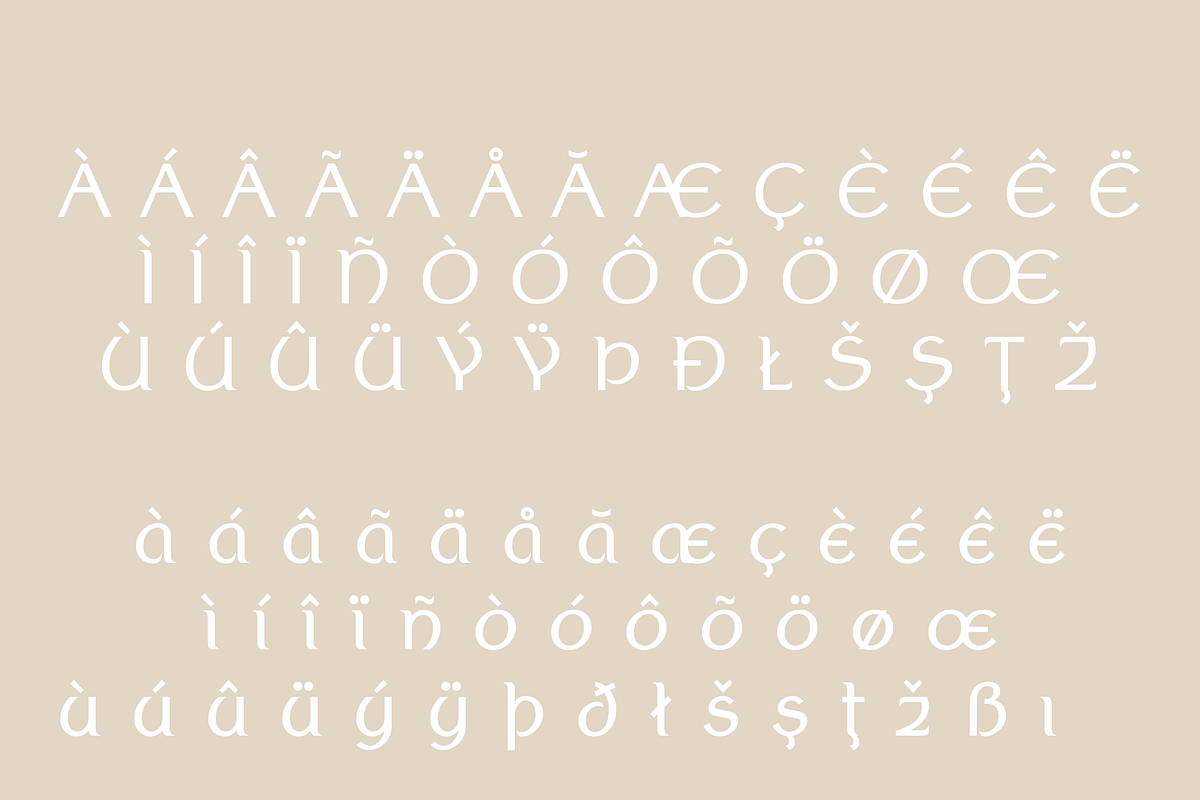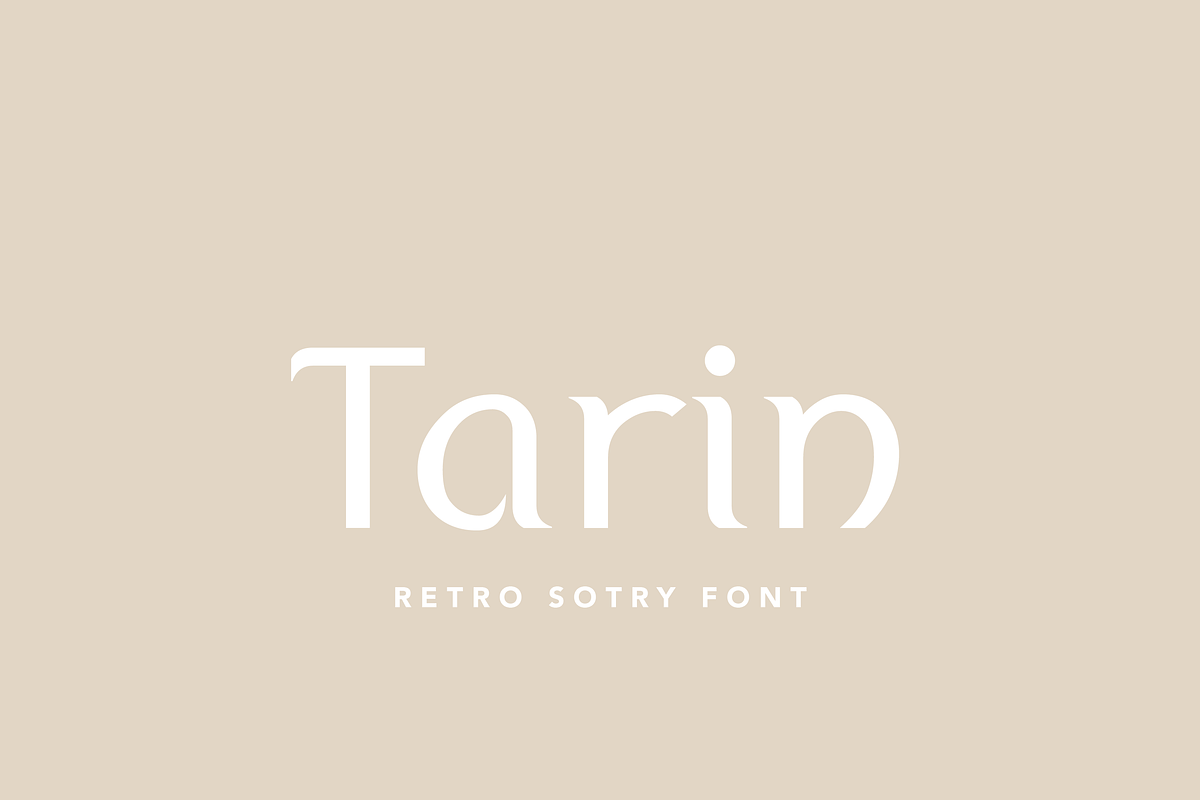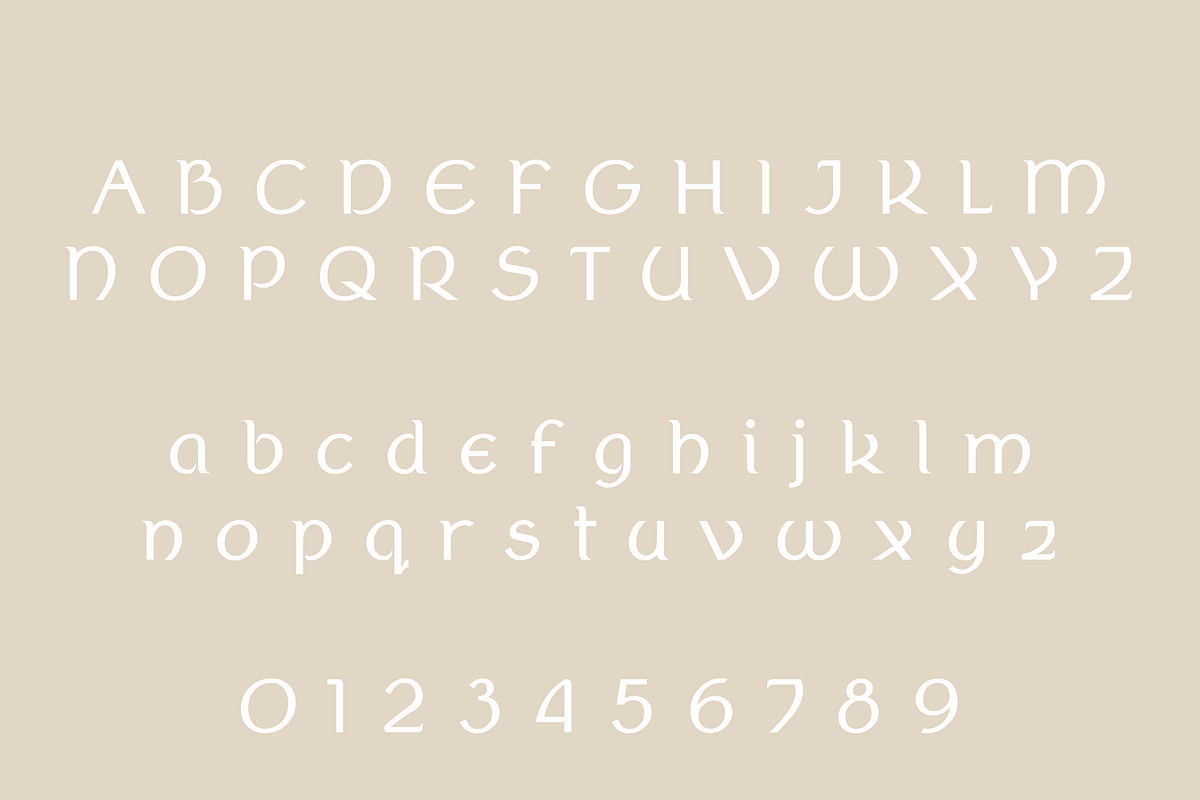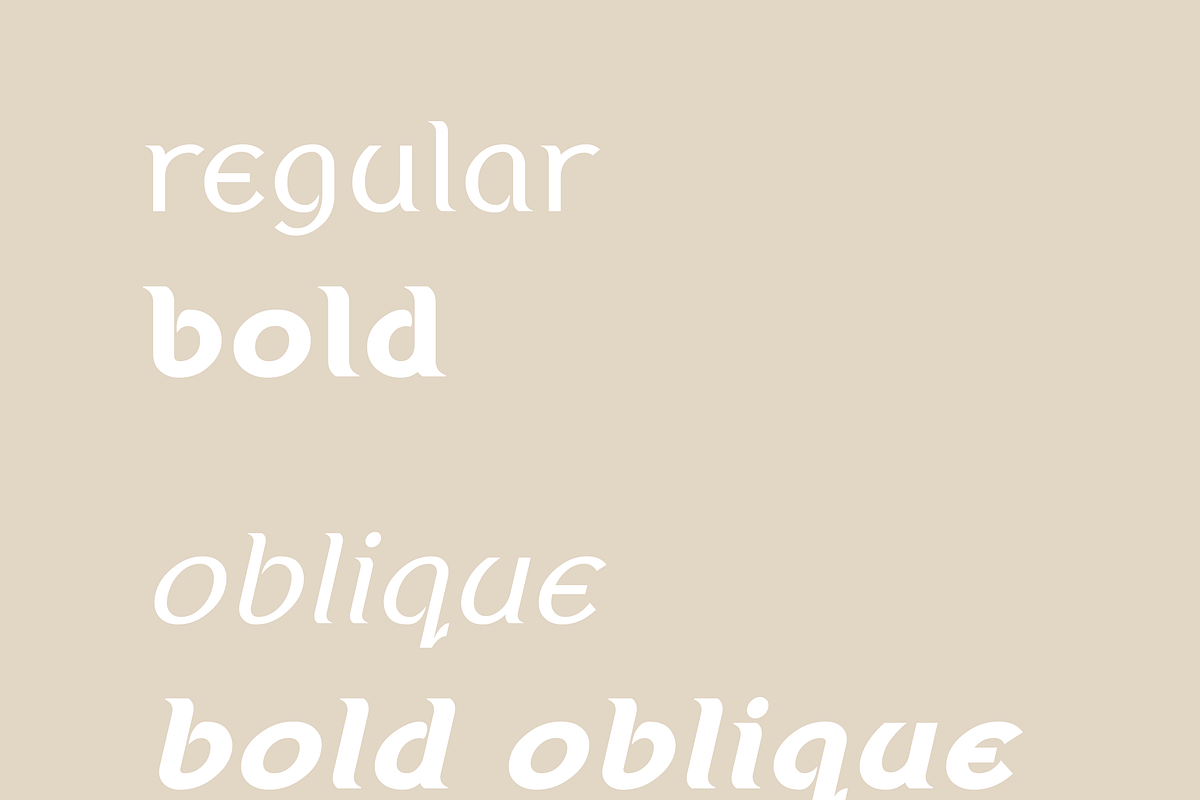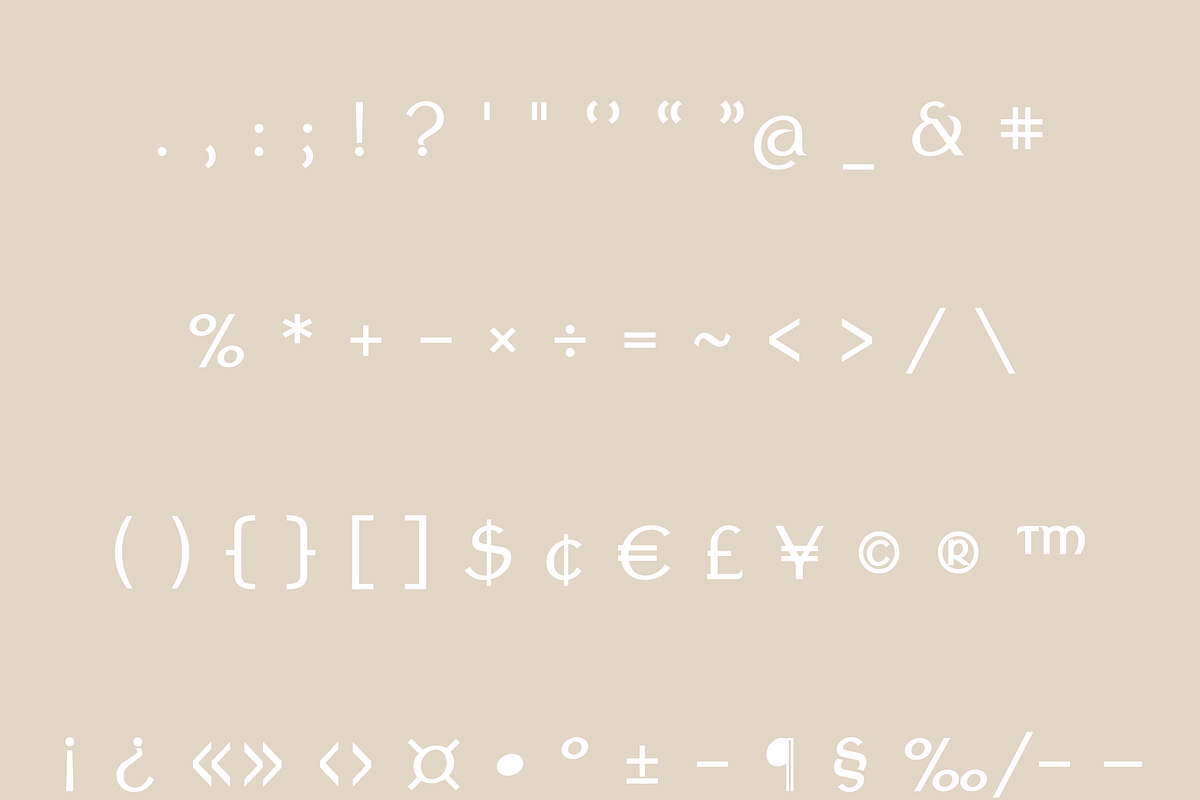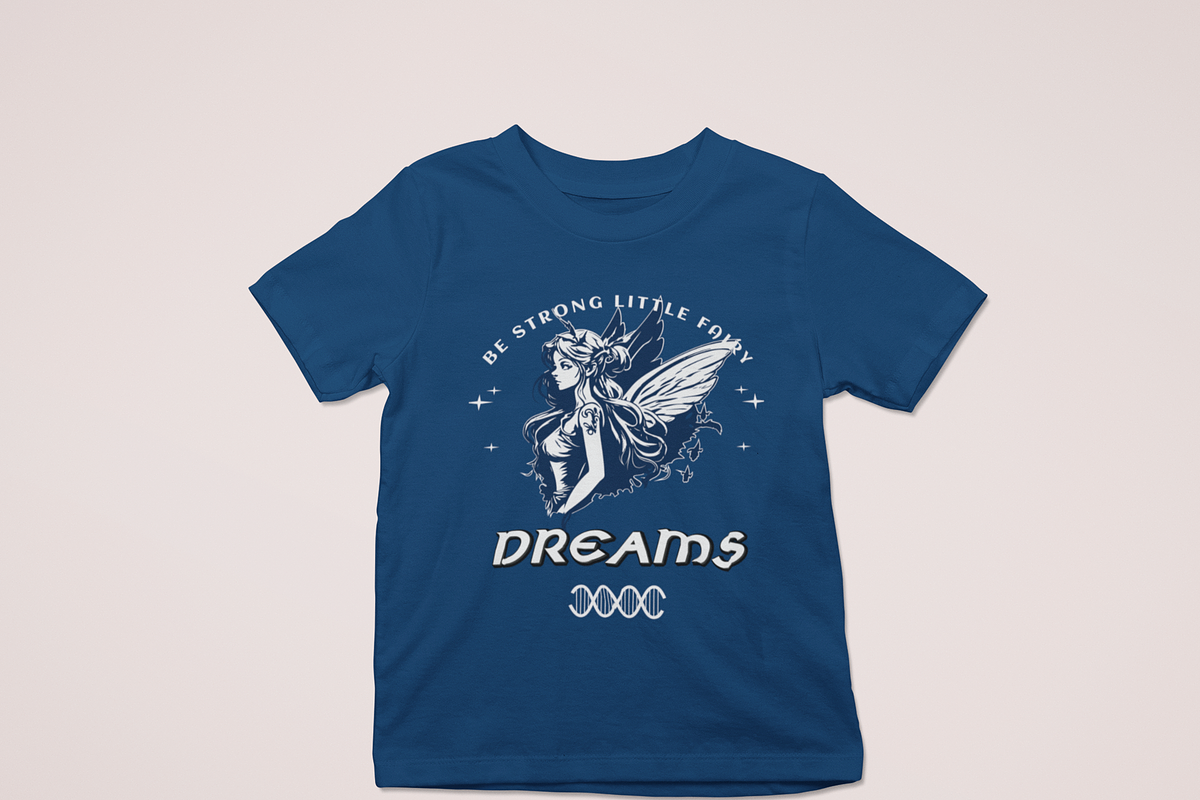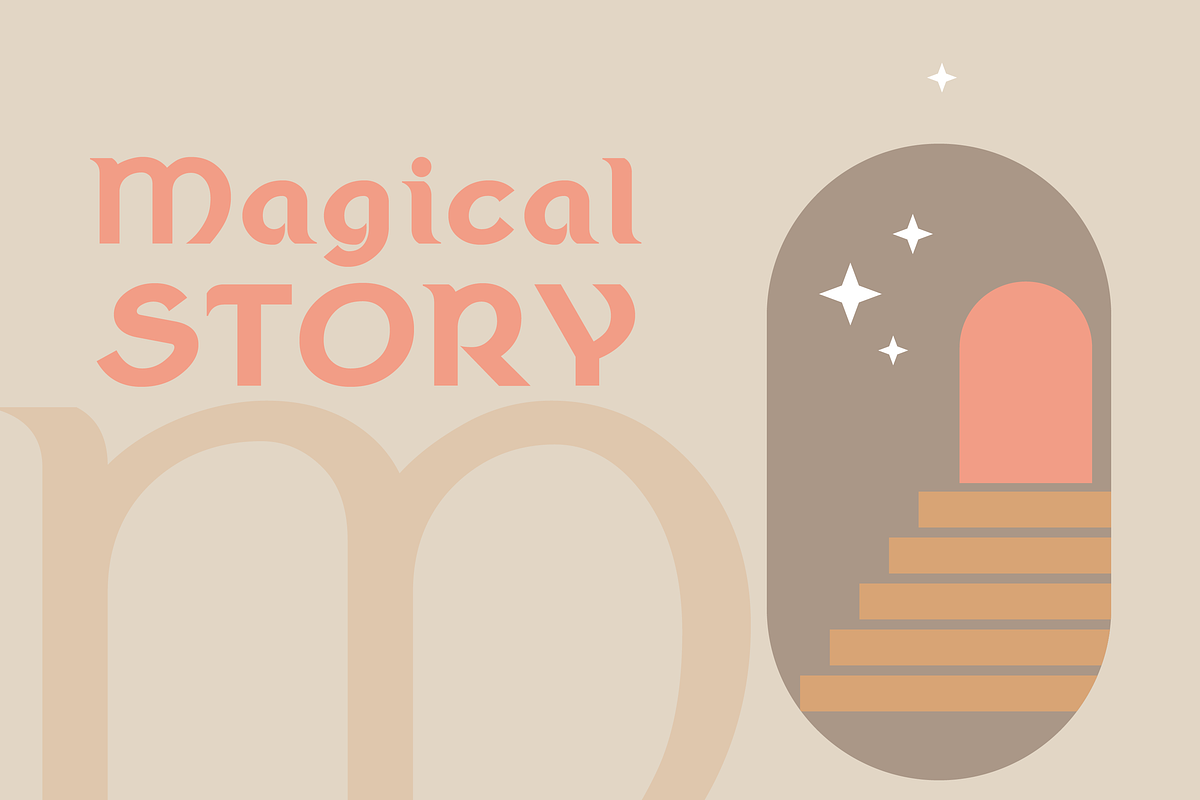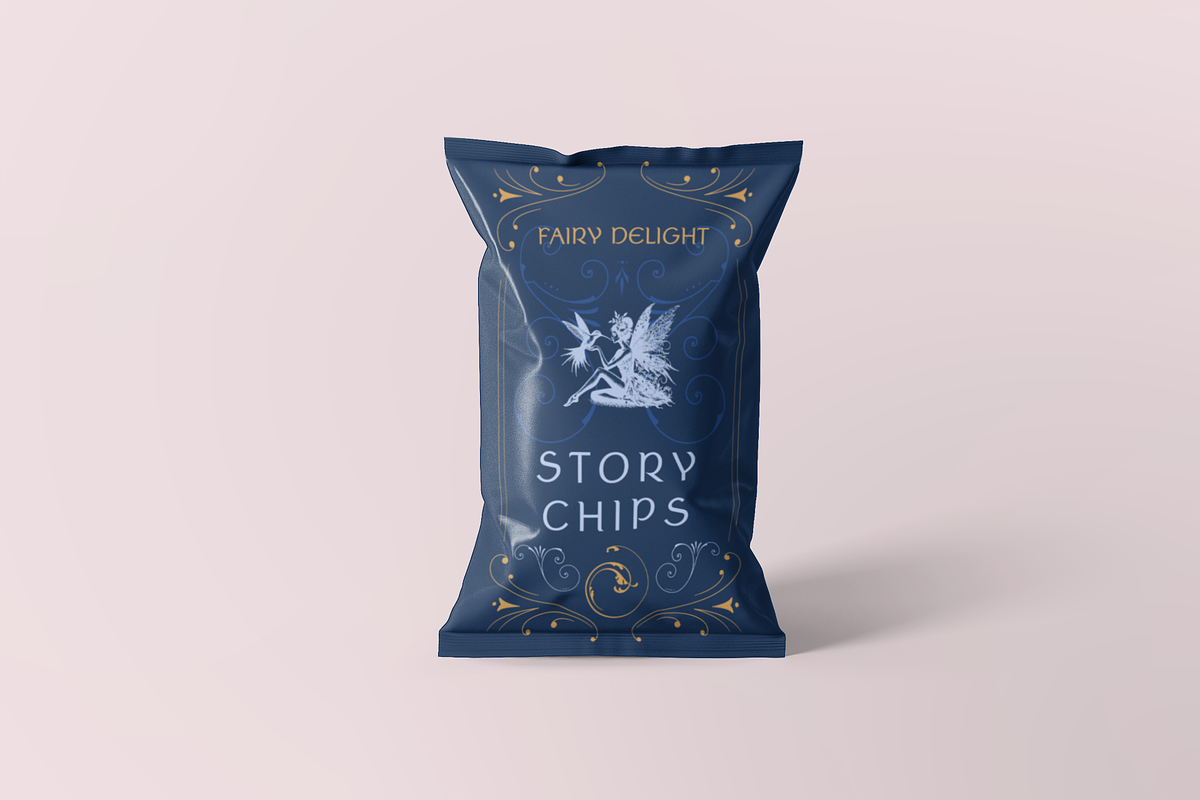
Tarin Sans
Tarin – A Celtic-Inspired Gothic Font
Tarin is a bold and distinctive gothic font infused with Celtic-inspired elements, perfect for designs that demand an edgy, mysterious aesthetic. It excels in logos, headlines, and branding materials, delivering a striking and memorable presence.
With its strong character and timeless allure, Tarin is the ideal typeface for those looking to add a bold, gothic charm to their work.